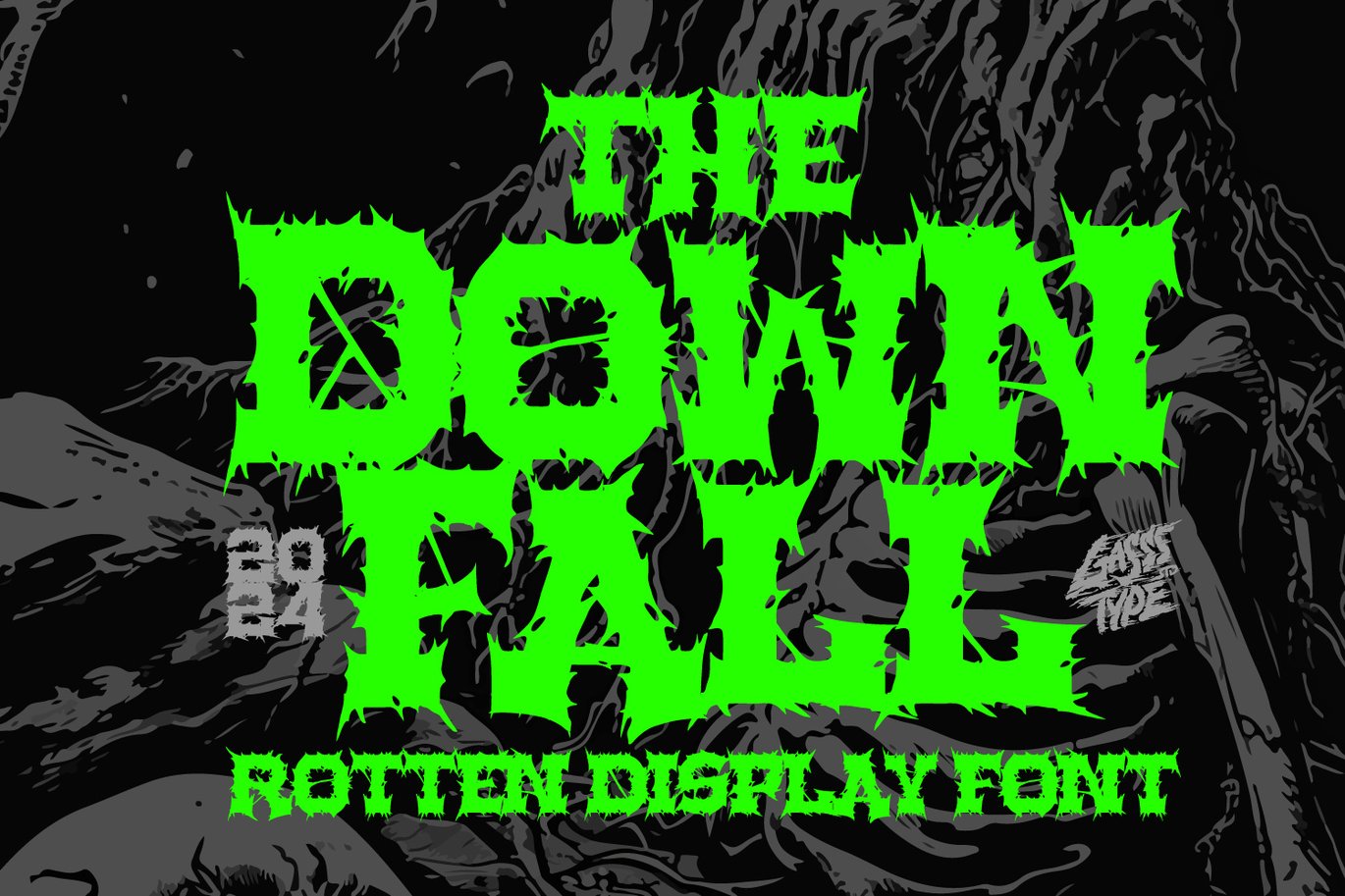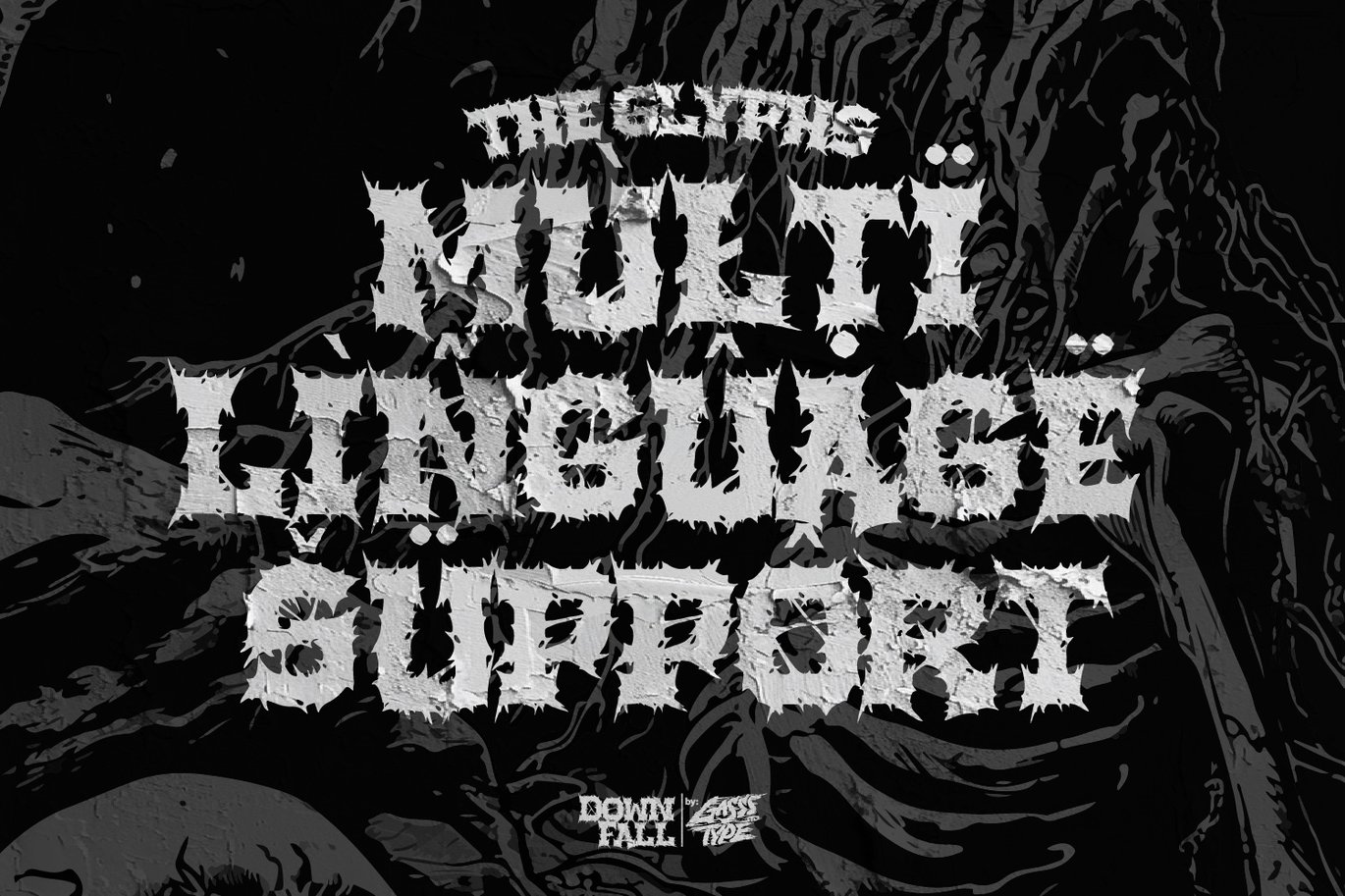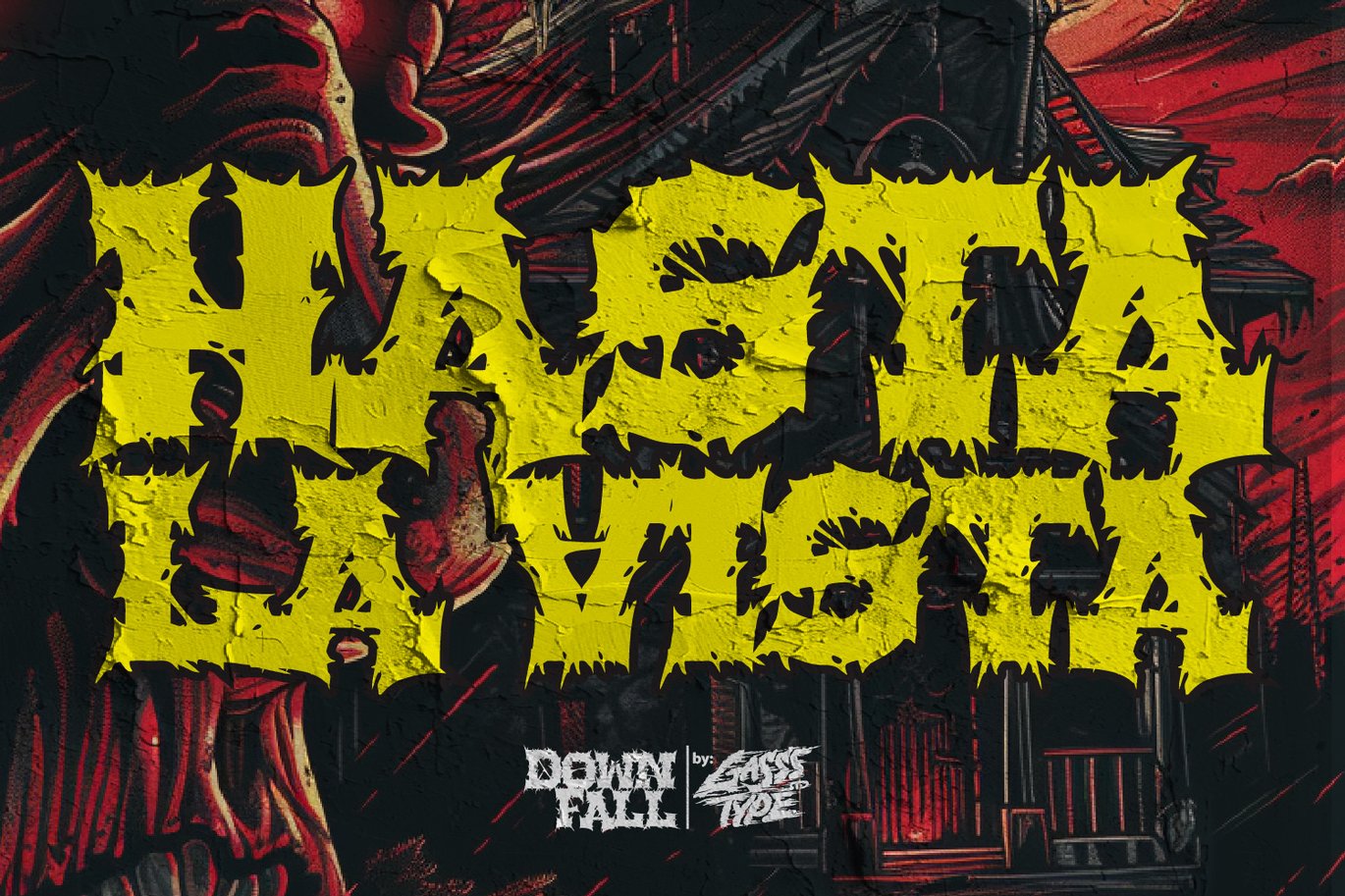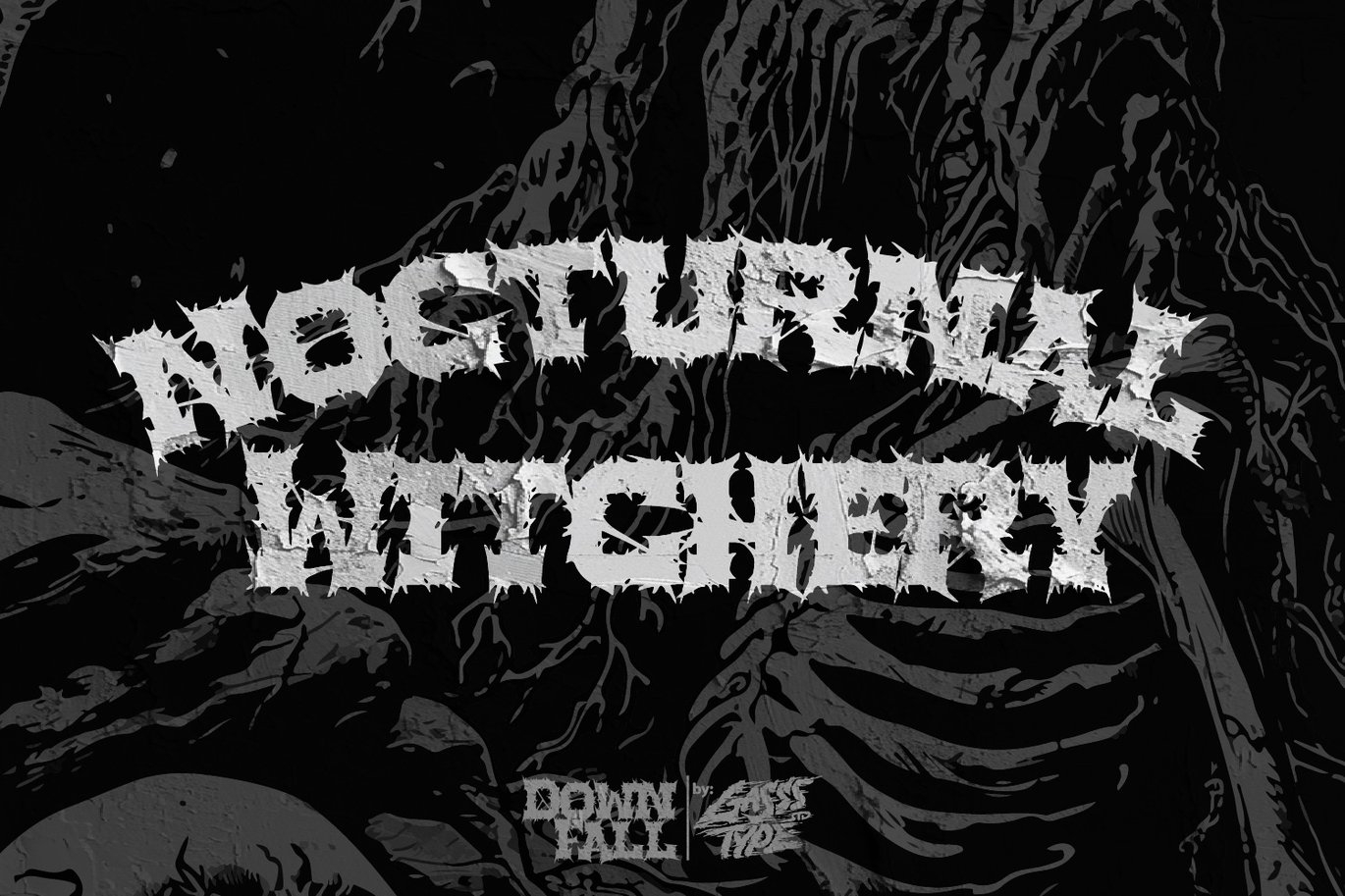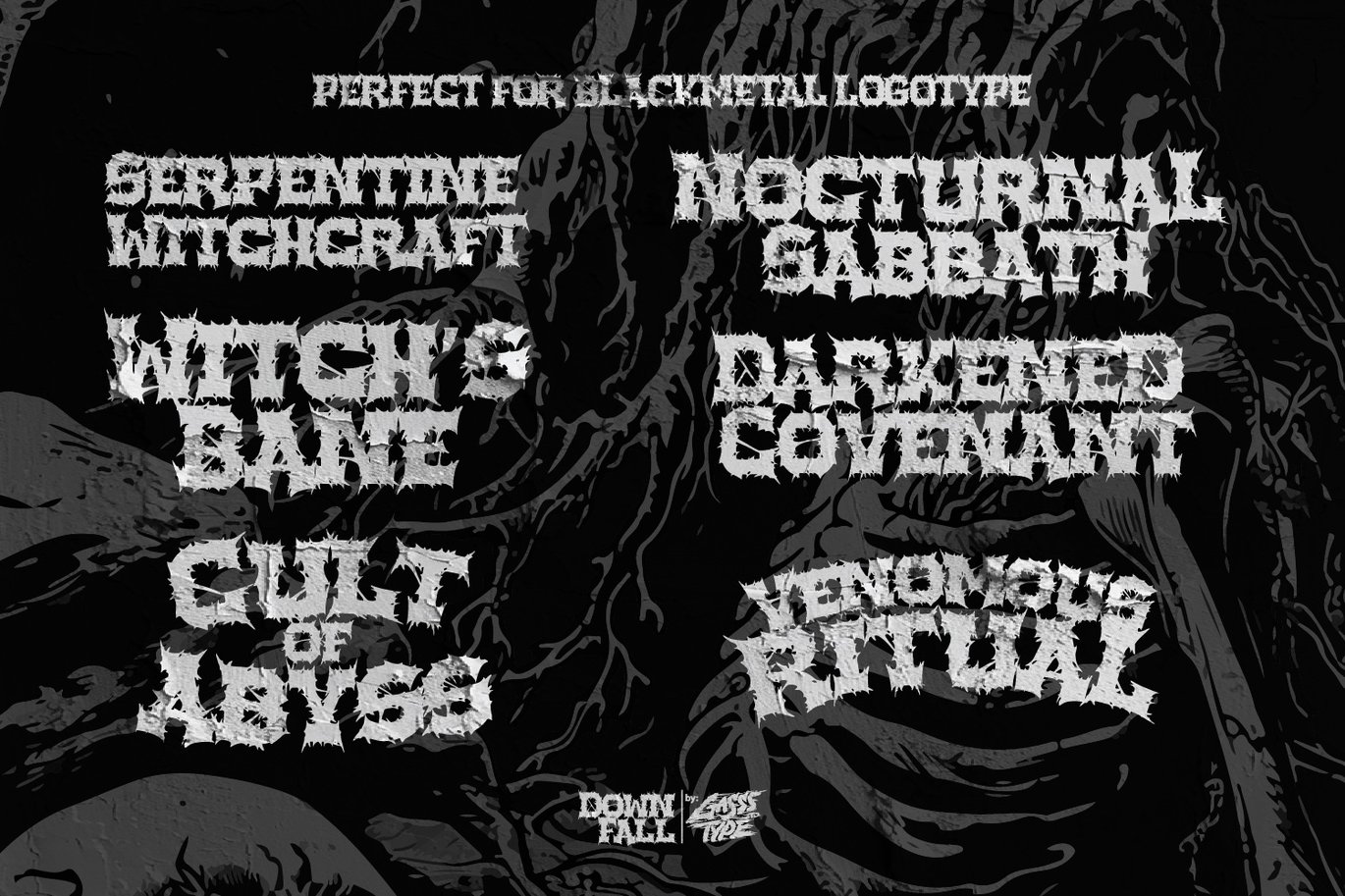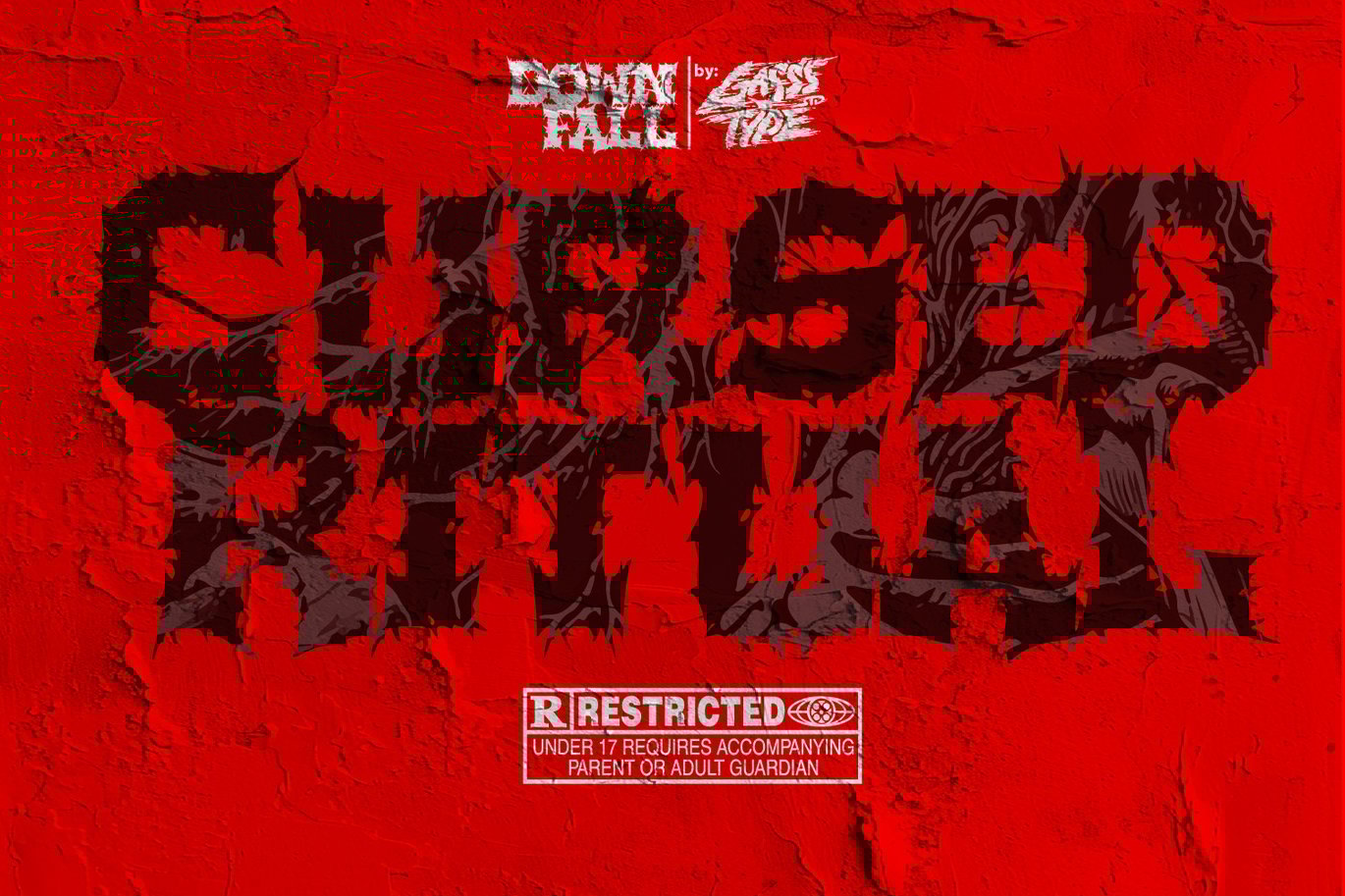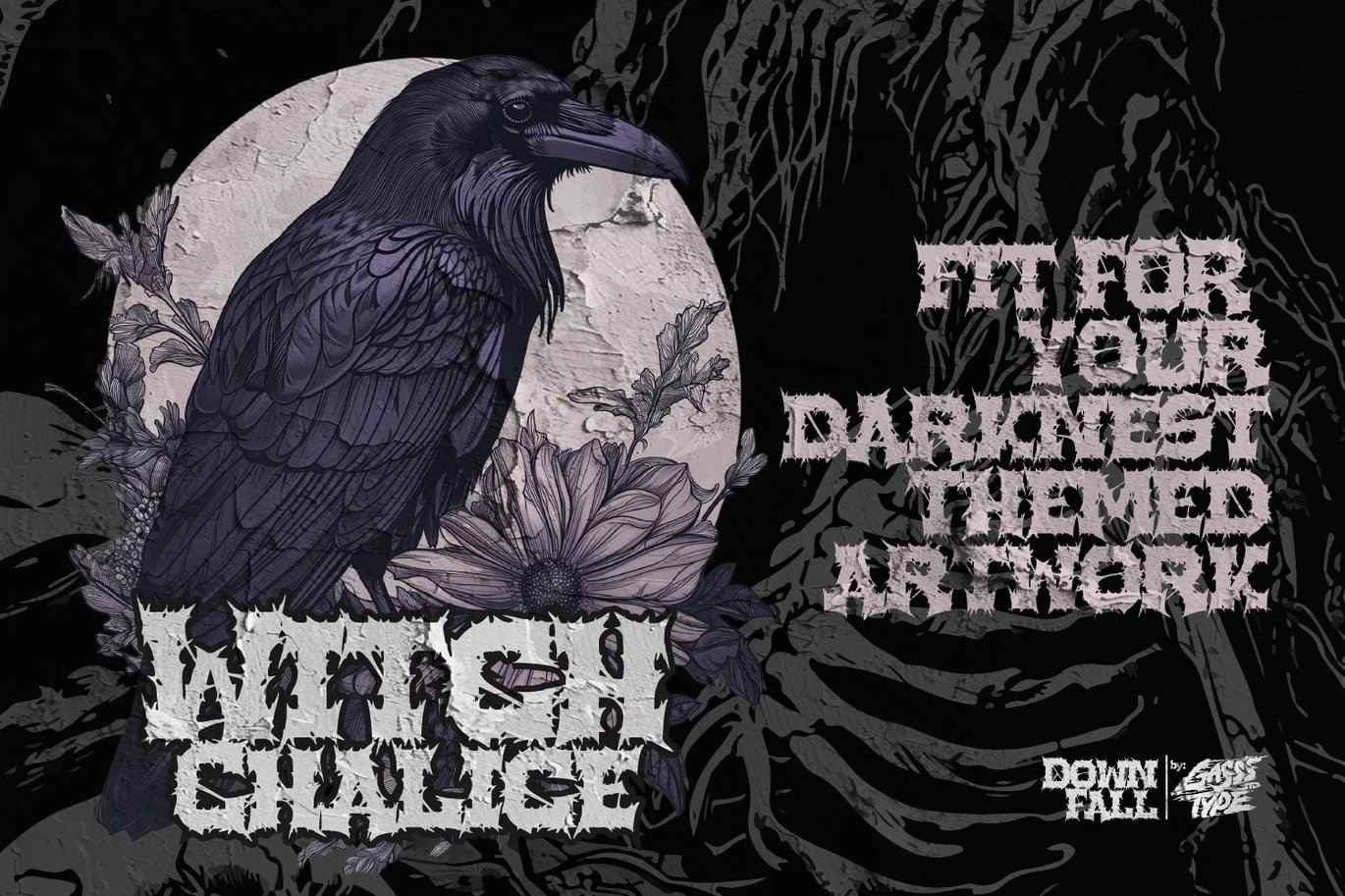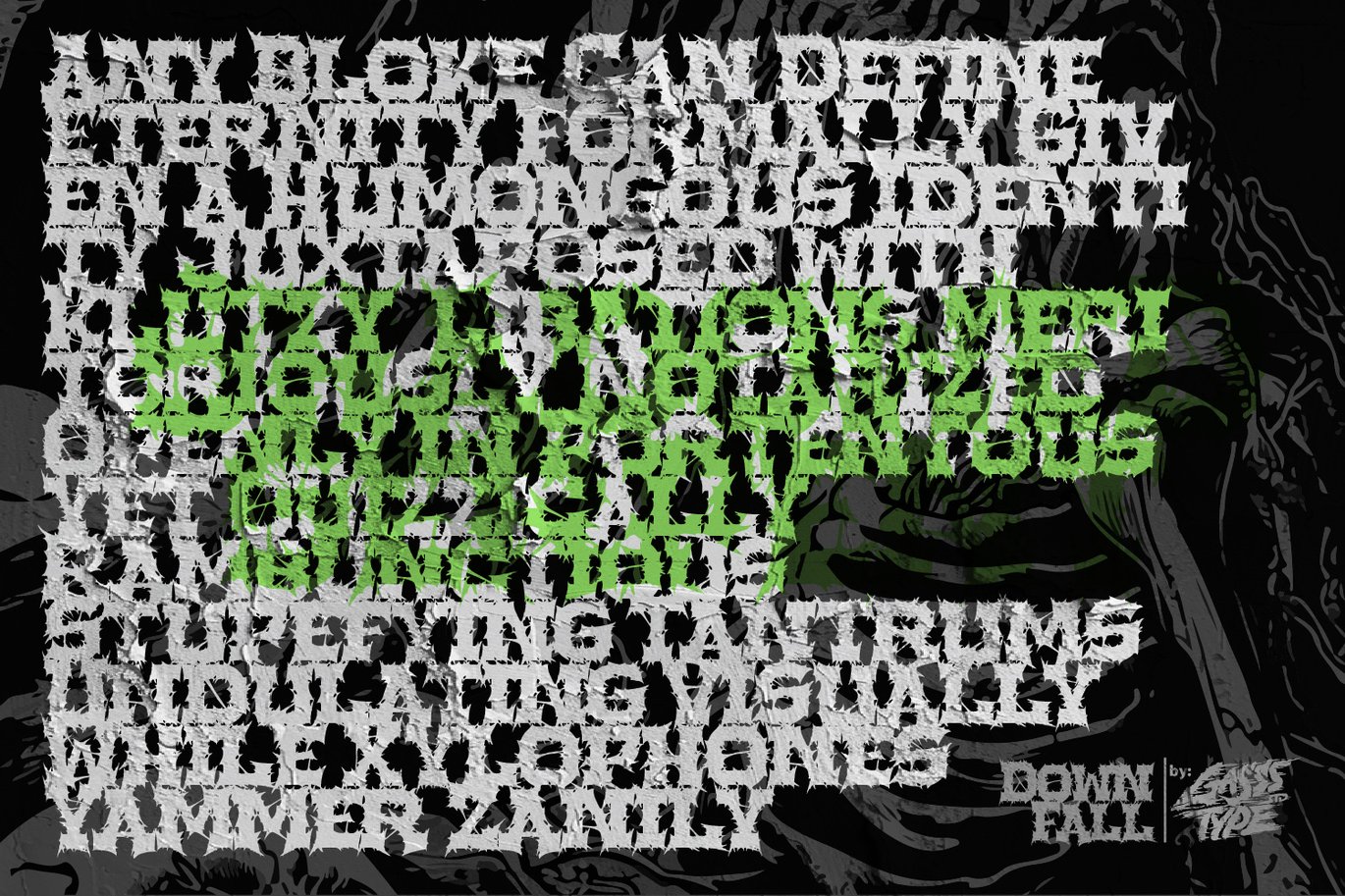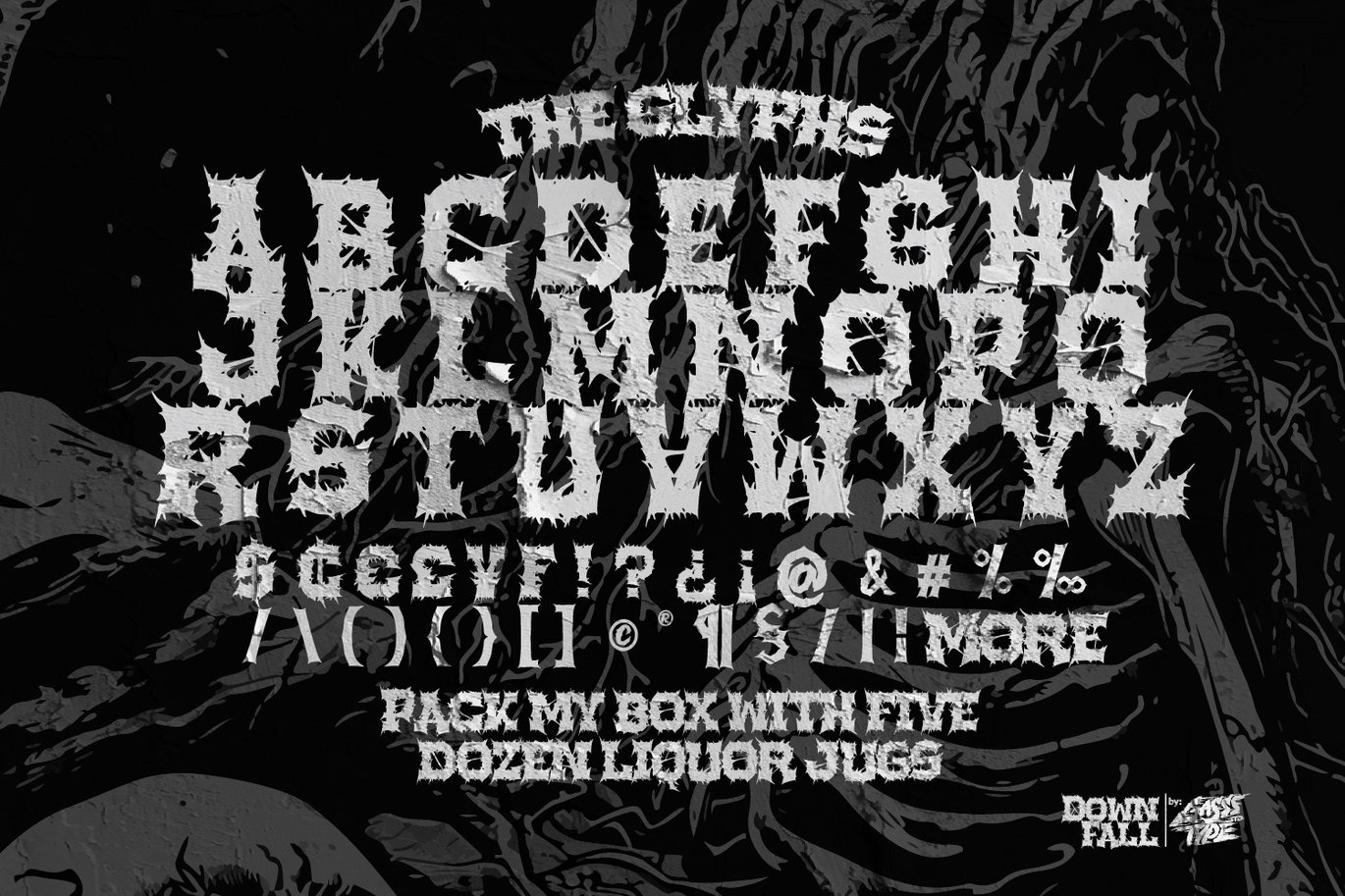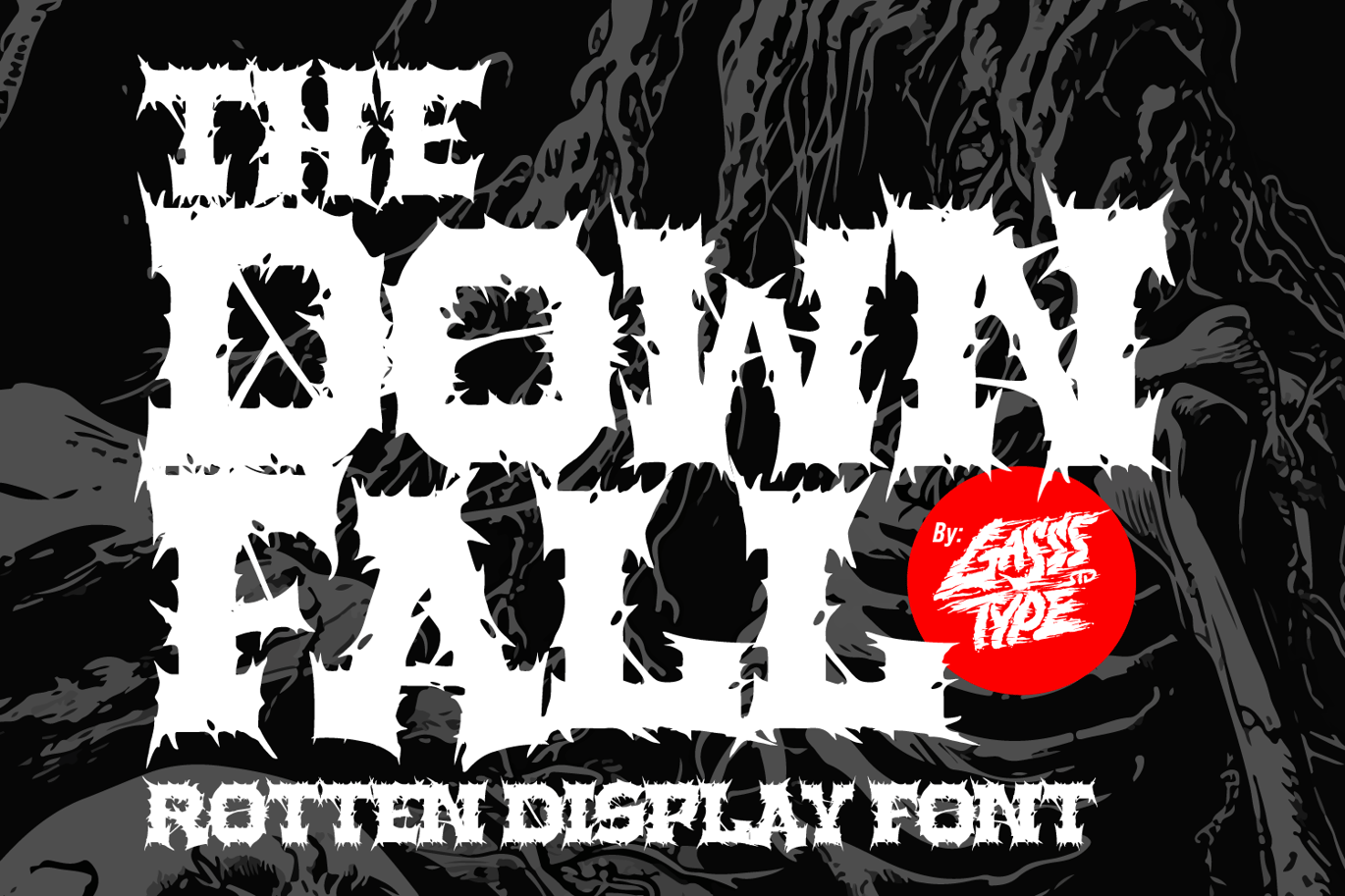
The Downfall – Black Metal Font
the Downfall: The Essence of Decay in Every Stroke
Unleash the raw power of darkness with Downfall—an all-caps black metal font that embodies the very essence of rot and ruin. Every letter drips with the decay of forgotten tombs, etched in the shadows of despair. Perfect for those who seek to evoke a sense of impending doom and relentless darkness in their work, Downfall is not just a font—it’s a descent into the abyss.
Let your words rot in style with Downfall